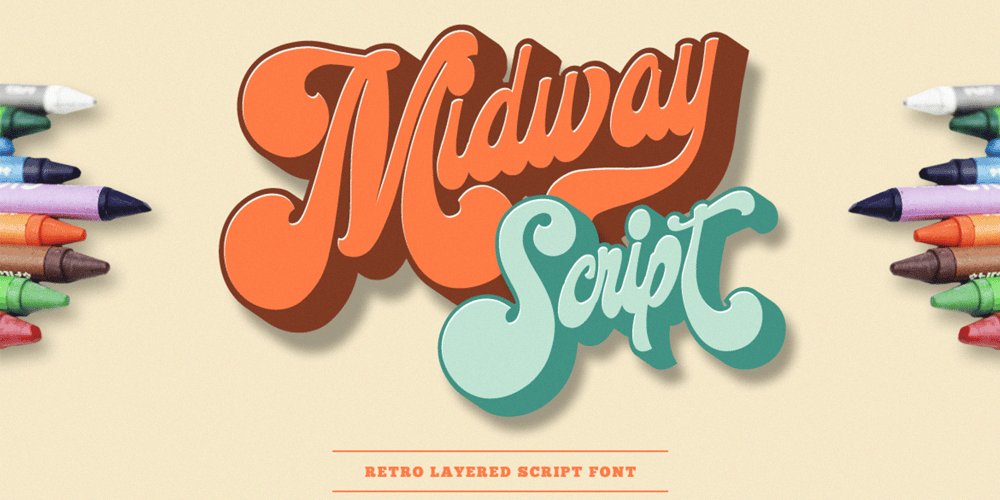
Midway Retro Font Family was designed by Ferry Ardana Putra and published by Ferry Ardana Putra. Midway Retro contains 2 styles and family package options. Midway is our another bold script typeface. Use this typeface and you will make a retro design with ease! Combined your design with dozens of stylistic alternates and elegant swashes which is included in this typeface, this retro typeface is really perfect for logo design, t-shirt, vintage and retro badge, vintage quotes, branding, packaging, etc.Midway features:A full set of upper & lowercase charactersNumbers & punctuationMultilingual language supportPUA Encoded Characters+320 GlyphUp to 80 Stylistic Alternates with Swashes and Ligatures!OpenType FeaturesFor more information about accessing alternative, you can see this link: http://adobe.ly/1m1fn4Y